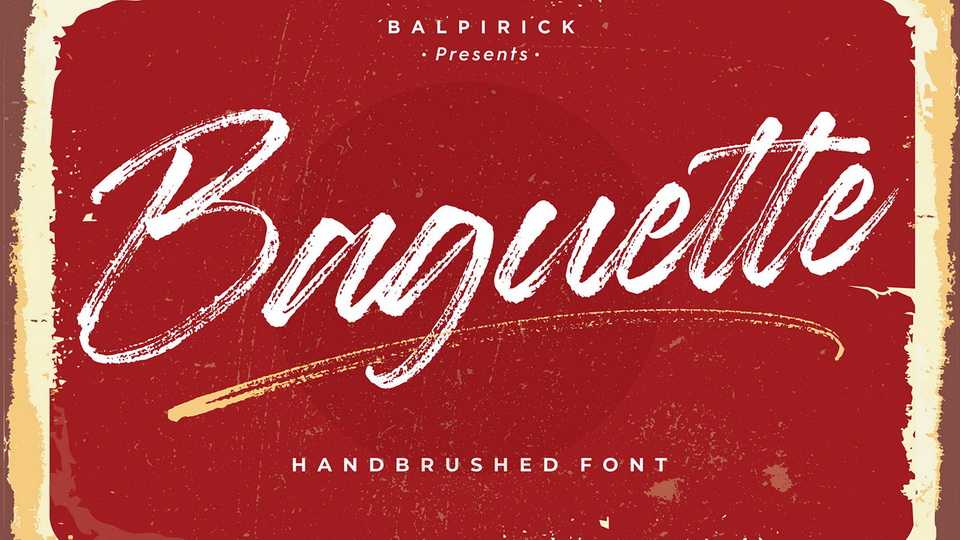
Download Baguette font, a natural handbrushed script with quick and powerful strokes. Baguette is perfect for product packaging, logo, branding, label, watermark, social media and more.
Designer: Balpirick Studio